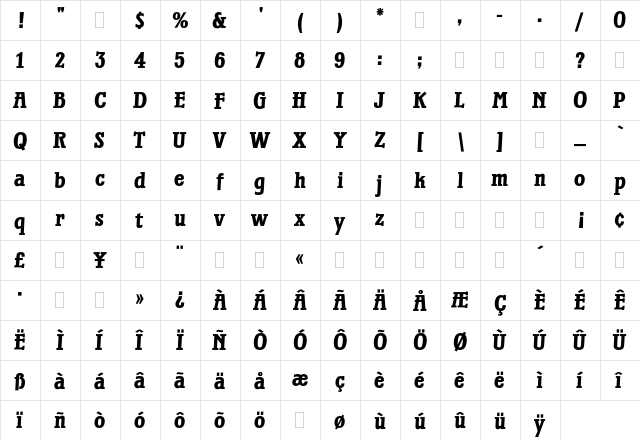
Waterloo Bold Plain
Design Context for Waterloo Bold Typeface
Waterloo Bold is a composed and adaptable typeface that performs quietly and consistently across a wide range of design contexts. The heavy weight commands attention and anchors typographic hierarchies.
Pro Tip: Use Waterloo Bold in both headline and body roles to test its range before committing to a single application.